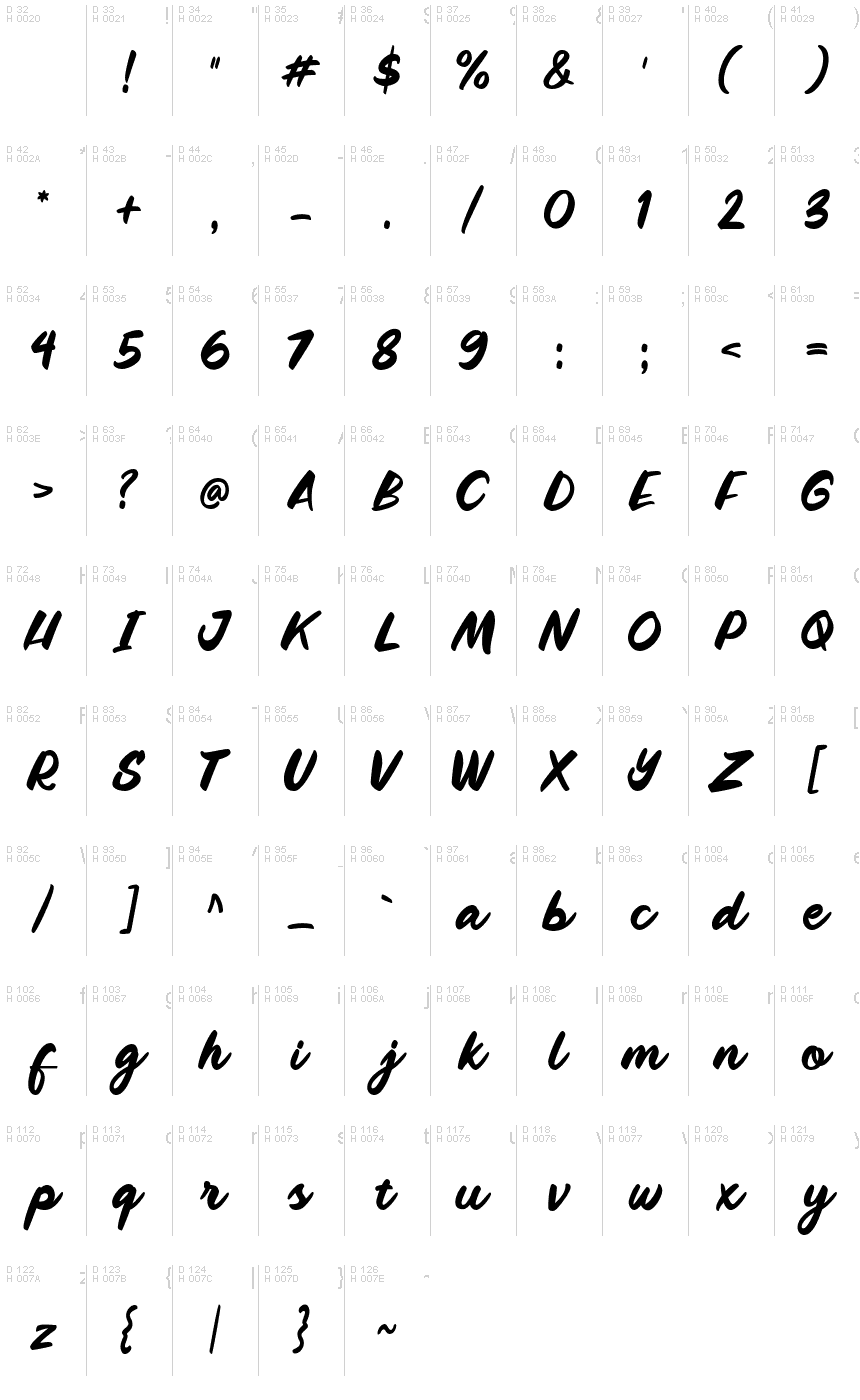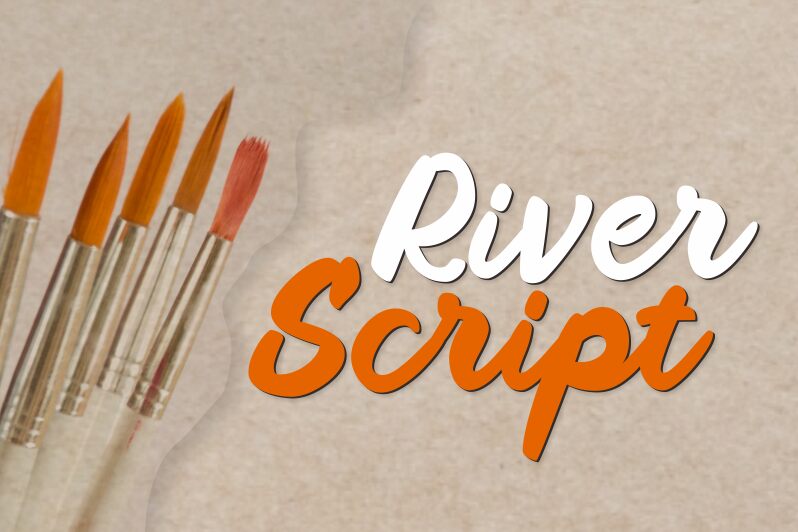
River Script
River Script is a bold and beautiful smooth brush font that adds a touch of elegance to any project. Designed by Aysa, Keithzo, and Situjuh Nazara, this font is perfect for creating striking designs that demand attention. Whether you're working on wedding invitations, restaurant menus, or fashion branding materials, River Script's bold weight will make your text stand out in all the right ways. Its smooth brush style gives it a unique and modern look that's sure to impress. So if you're looking for a versatile font that can add some flair to your next project, give River Script a try!